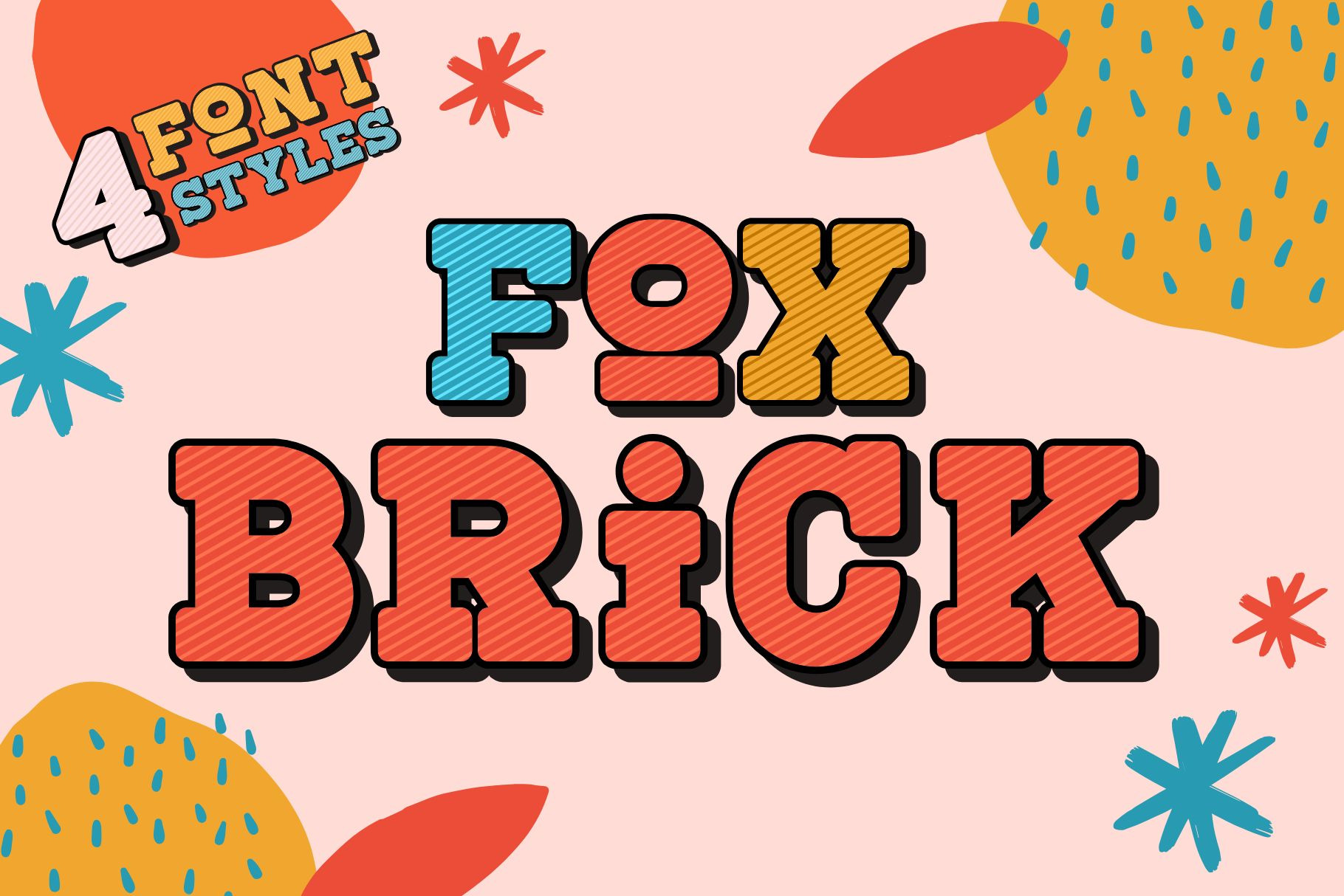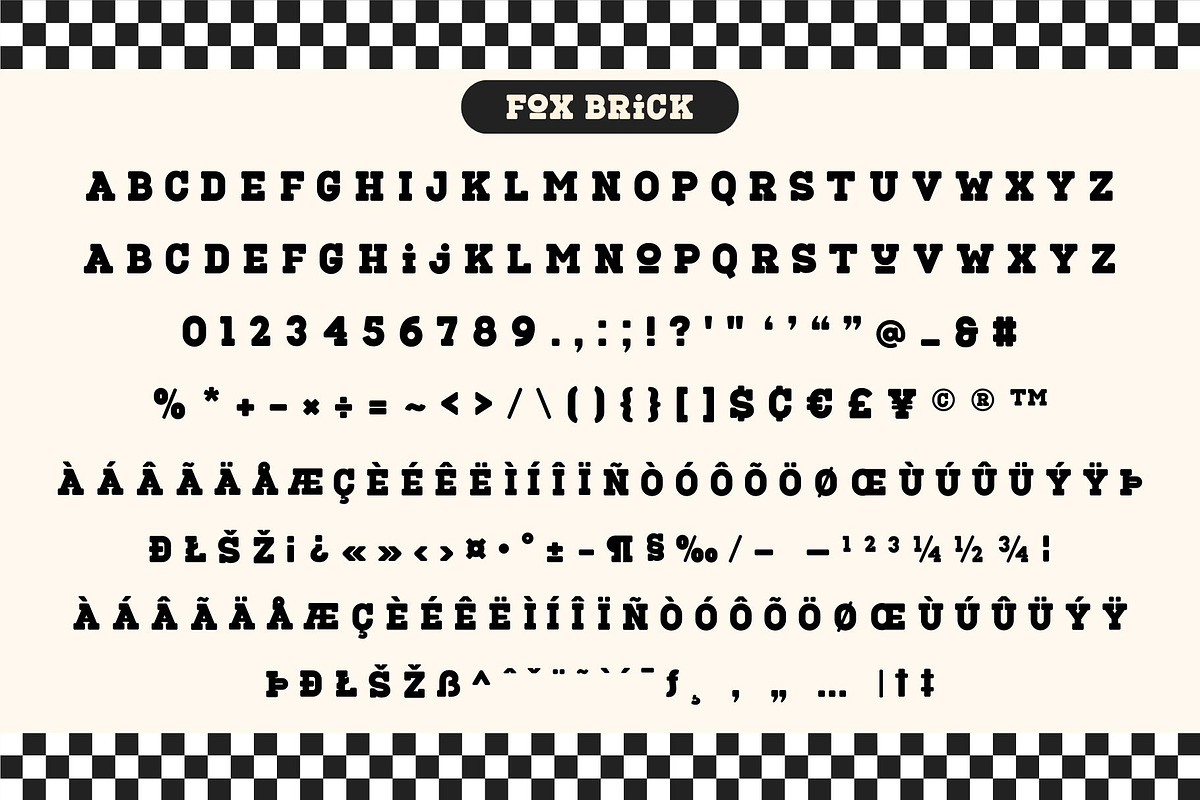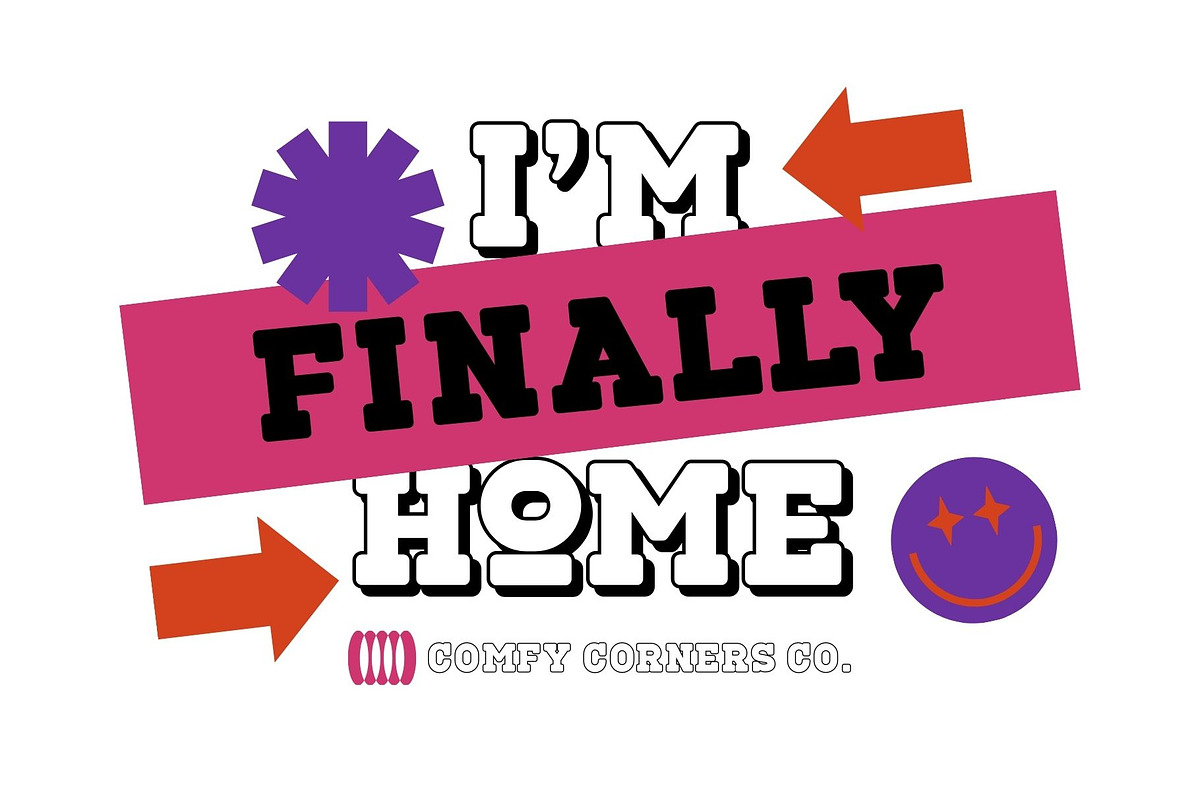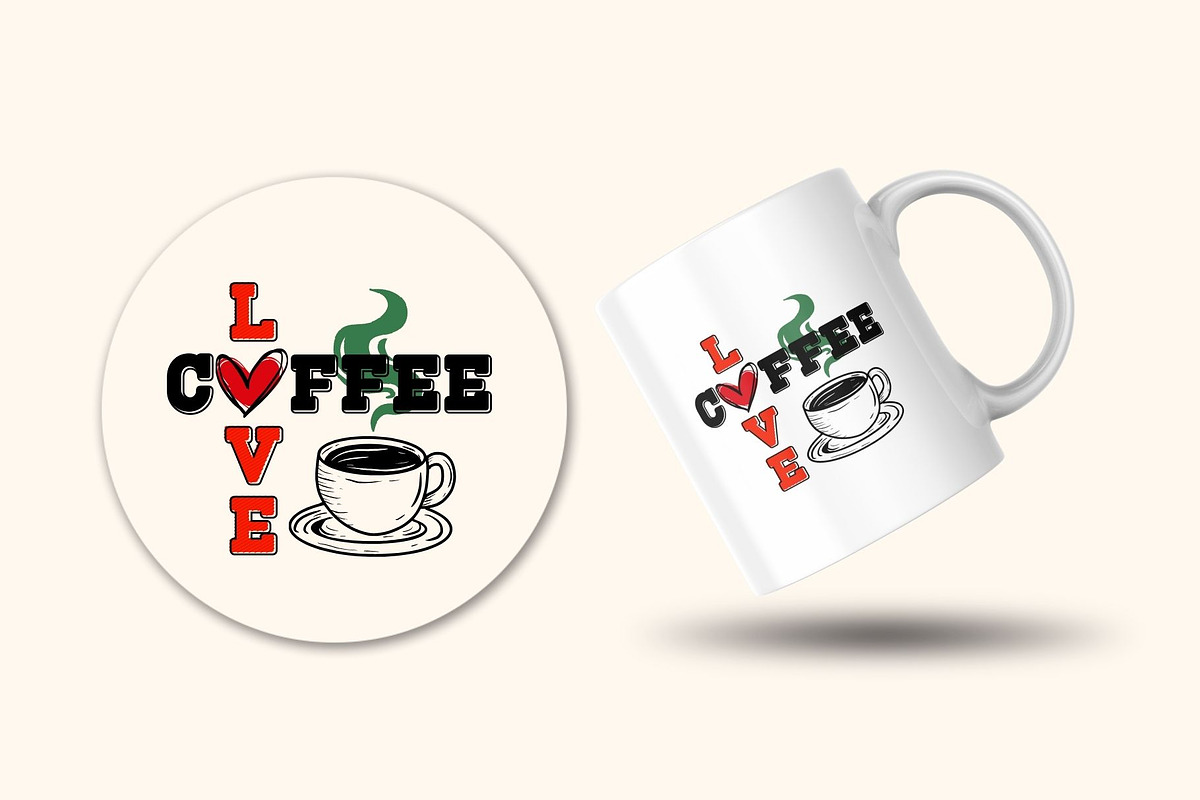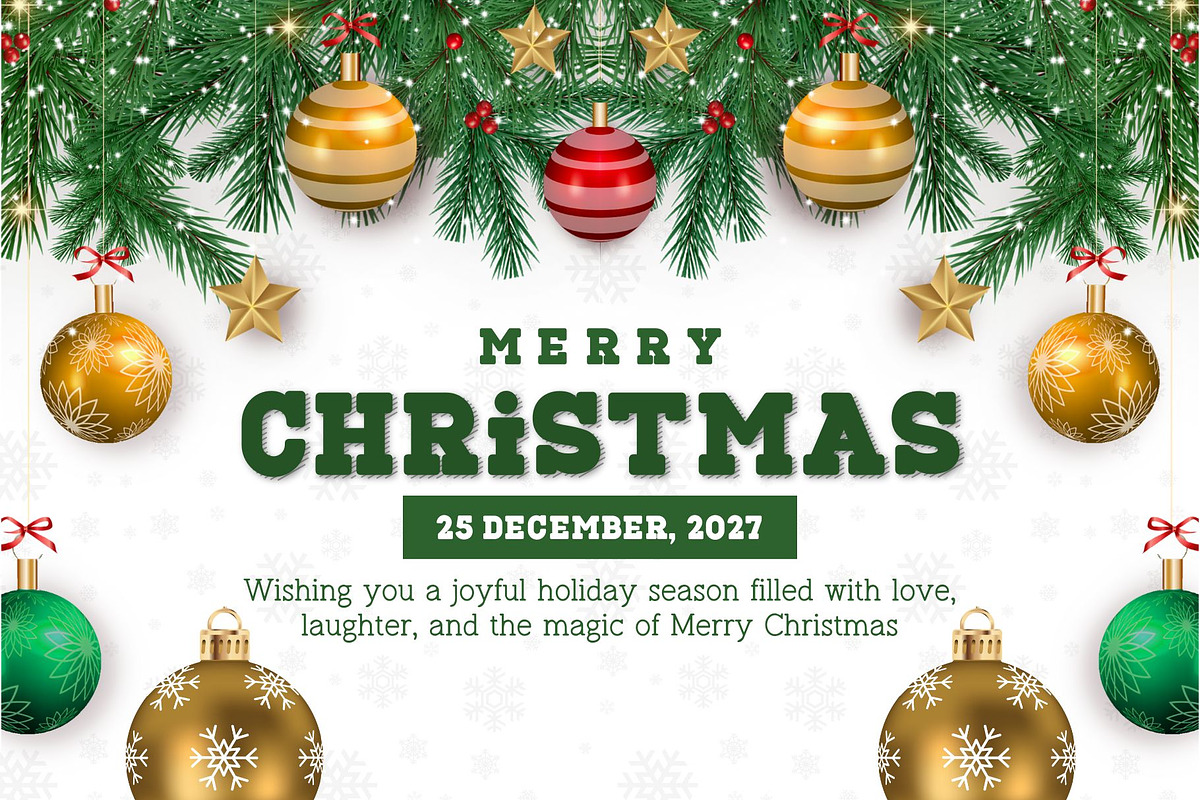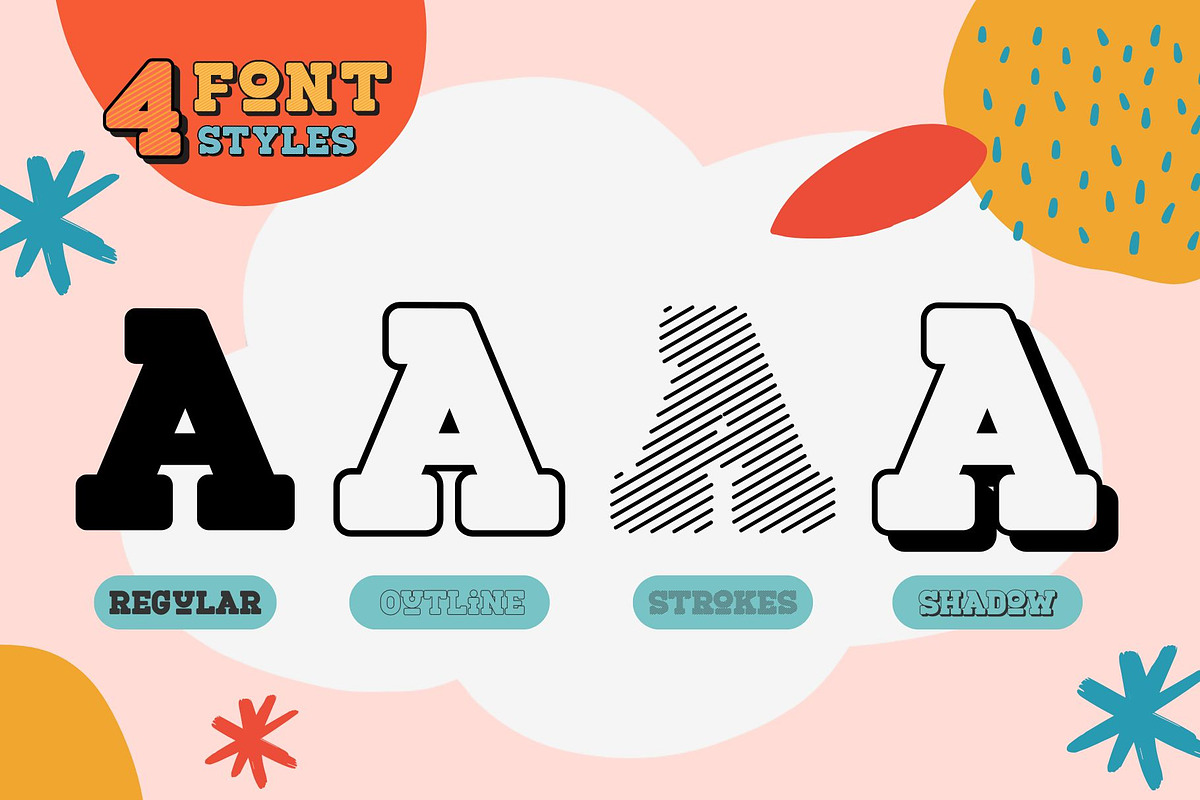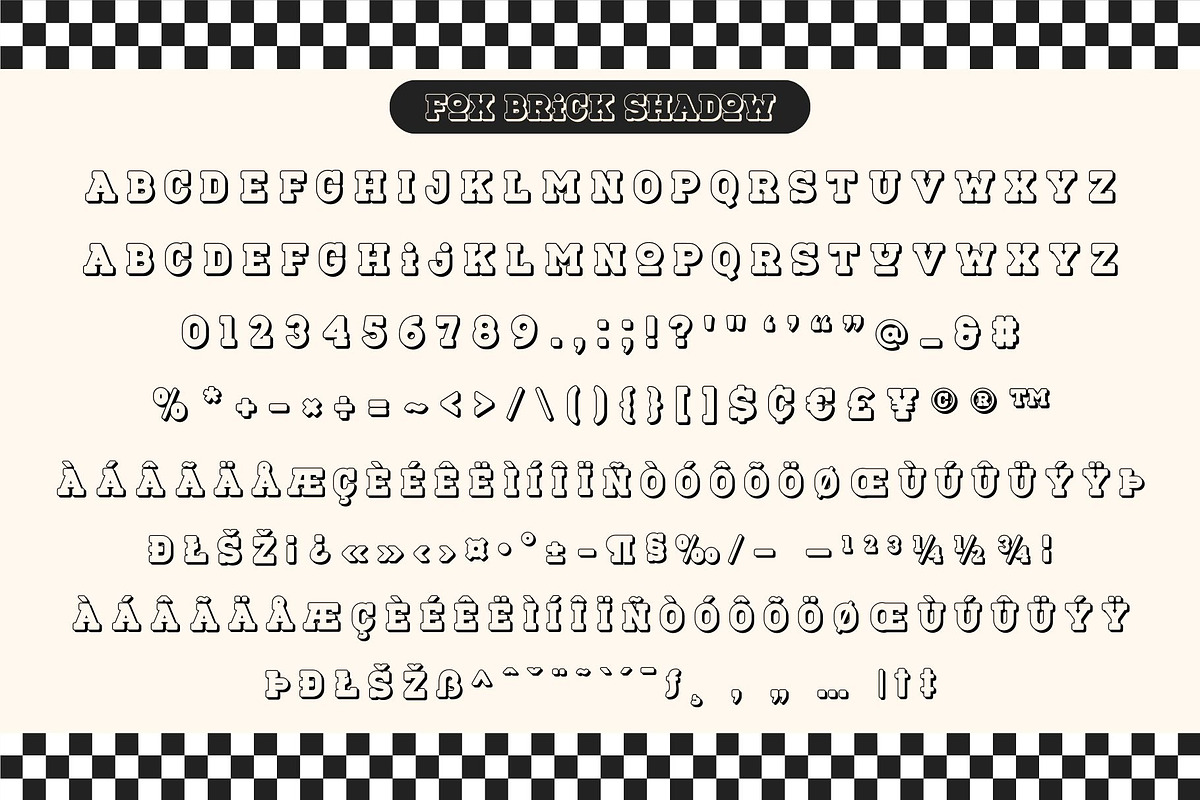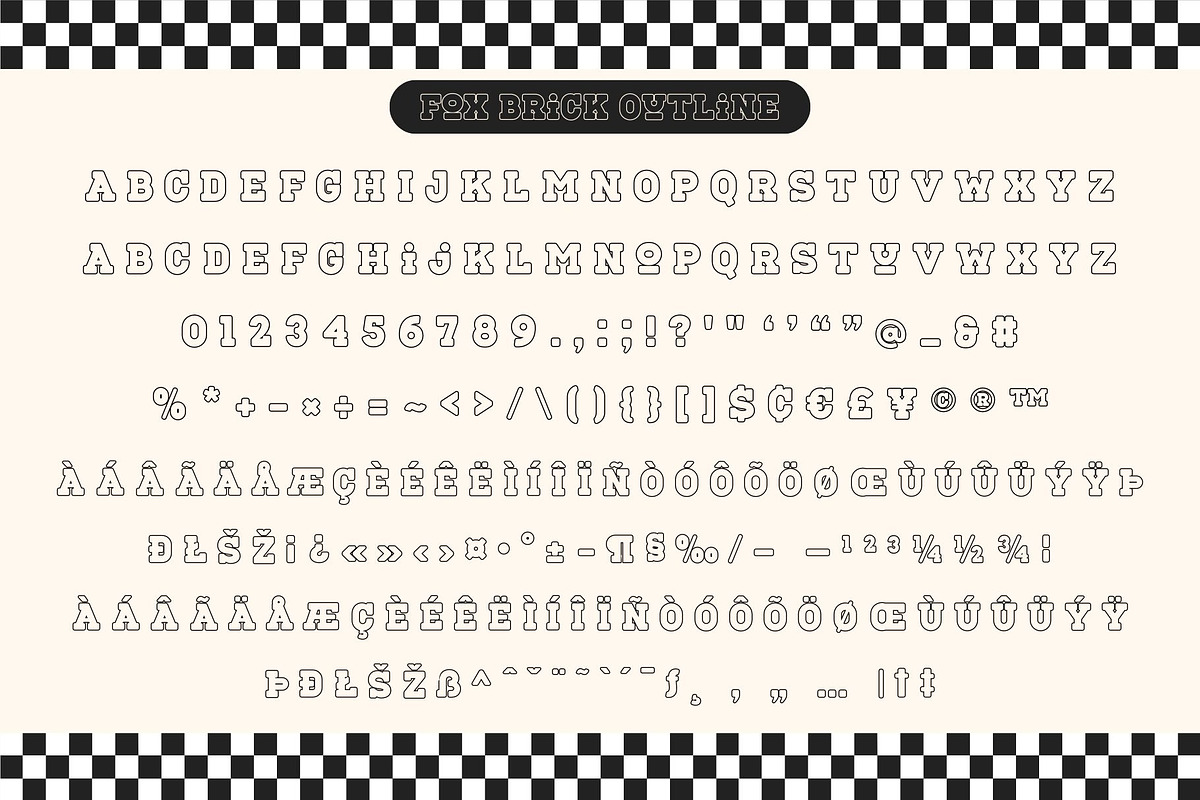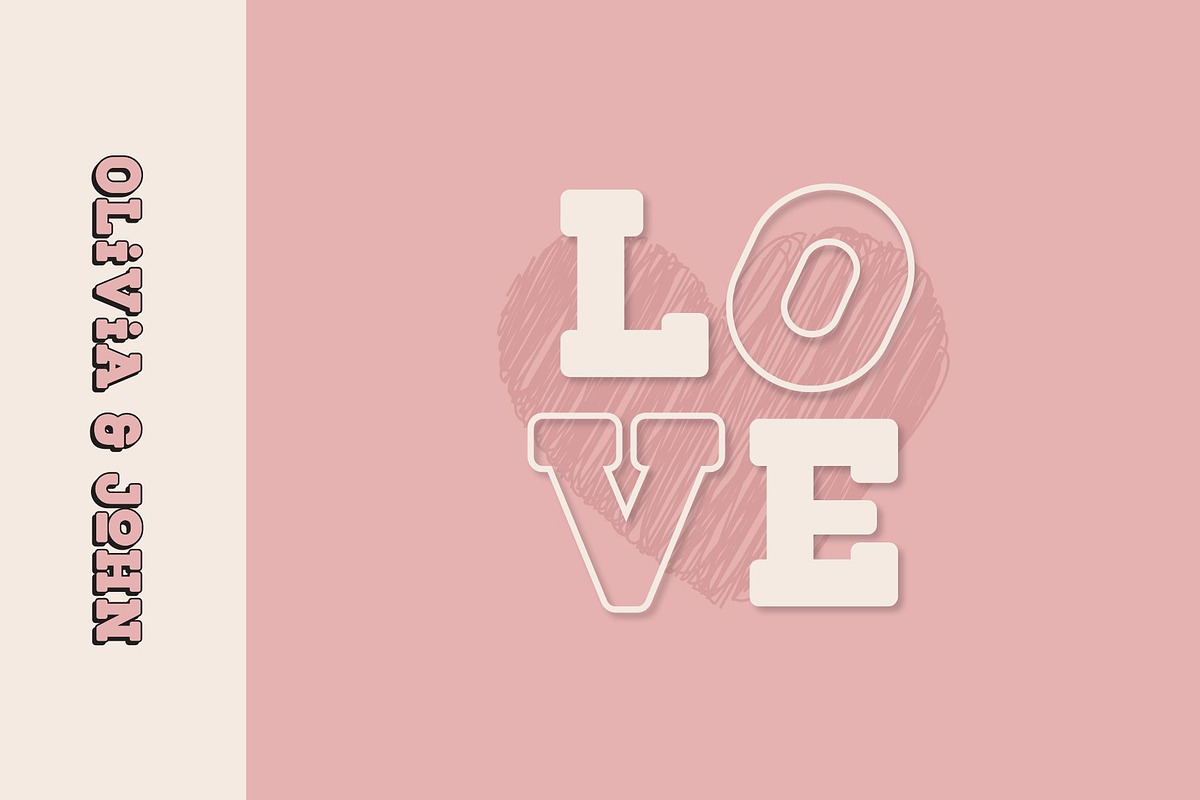
Fox Brick 4 Font Styles
Add a splash of fun and bold personality to your designs with Fox Brick — a playful and chunky display font perfect for kids’ projects, branding, posters, packaging, and more. Inspired by retro comic styles and vibrant pop art, Fox Brick comes in 4 unique styles: Regular, Outline, Strokes, and Shadow. Each version brings a whimsical and eye-catching effect that makes your text pop!
With its thick, blocky letters and dynamic textures, Fox Brick is designed to grab attention and spread cheer. Whether you're designing a coffee mug, sticker, or playful headline, this font will give your creation an energetic, friendly vibe.